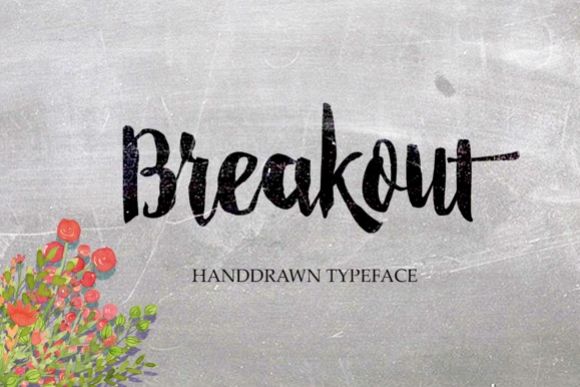
Breakout
Breakout.
Breakout is Handdrawn font, fantastic and unique.
The Features of this fonts is;
Standart ligatures
Stylistic Alternates
Stylistic sets